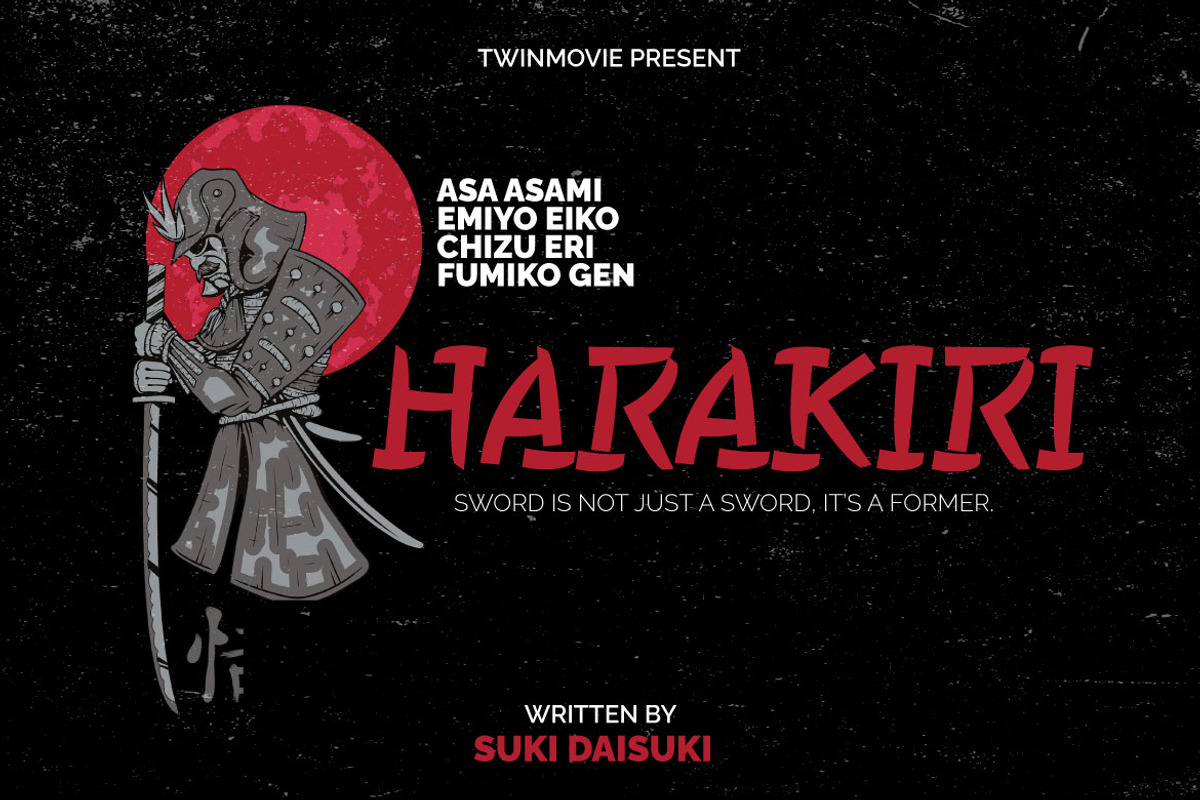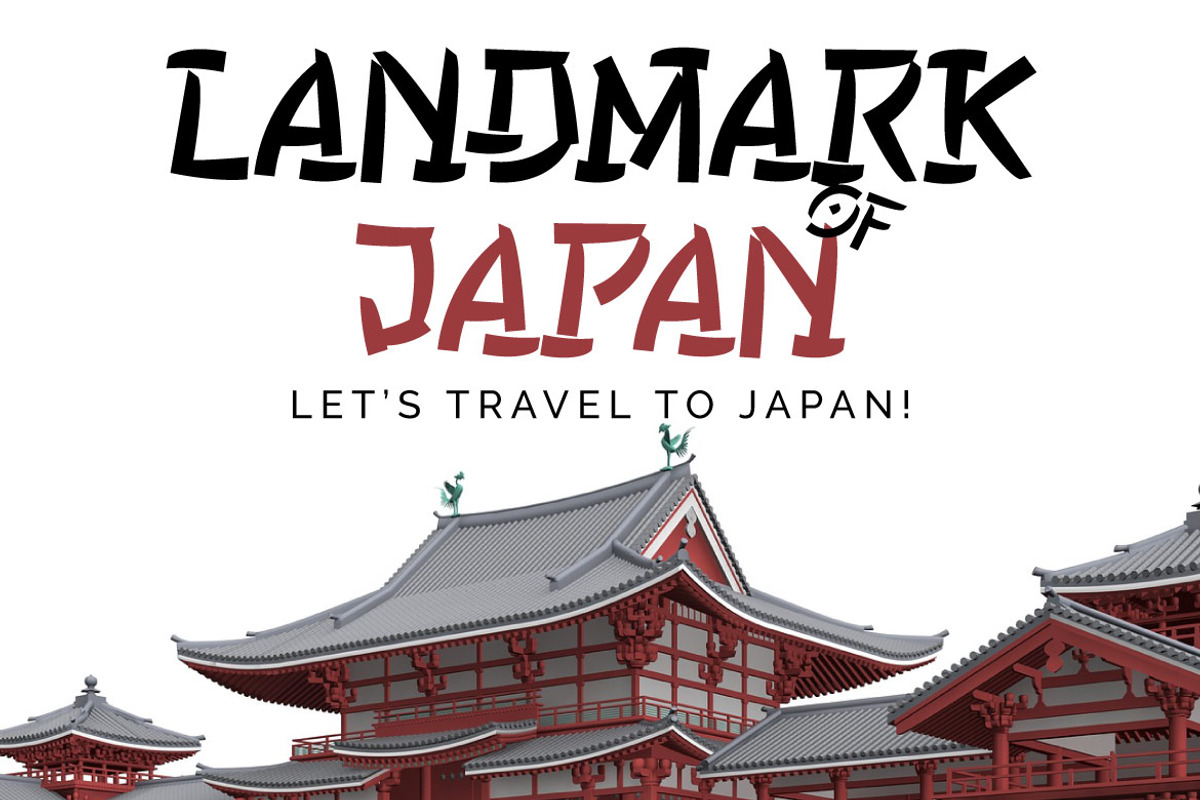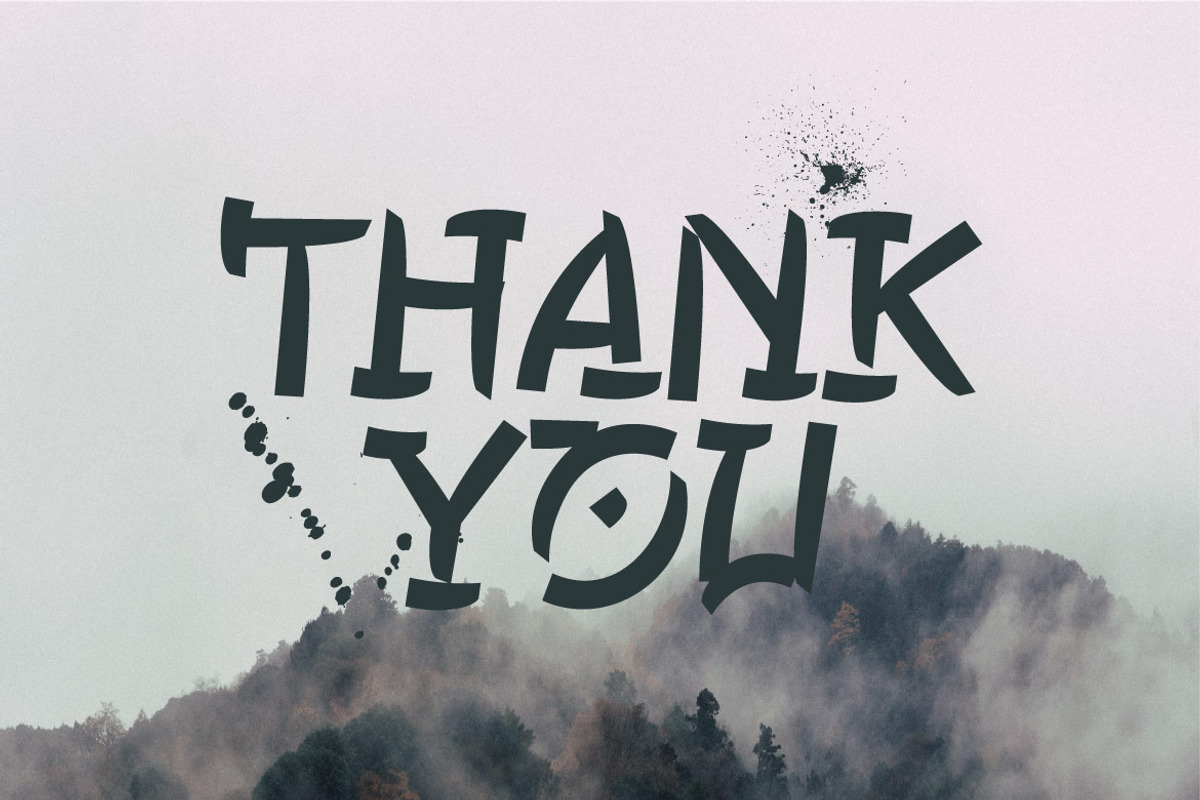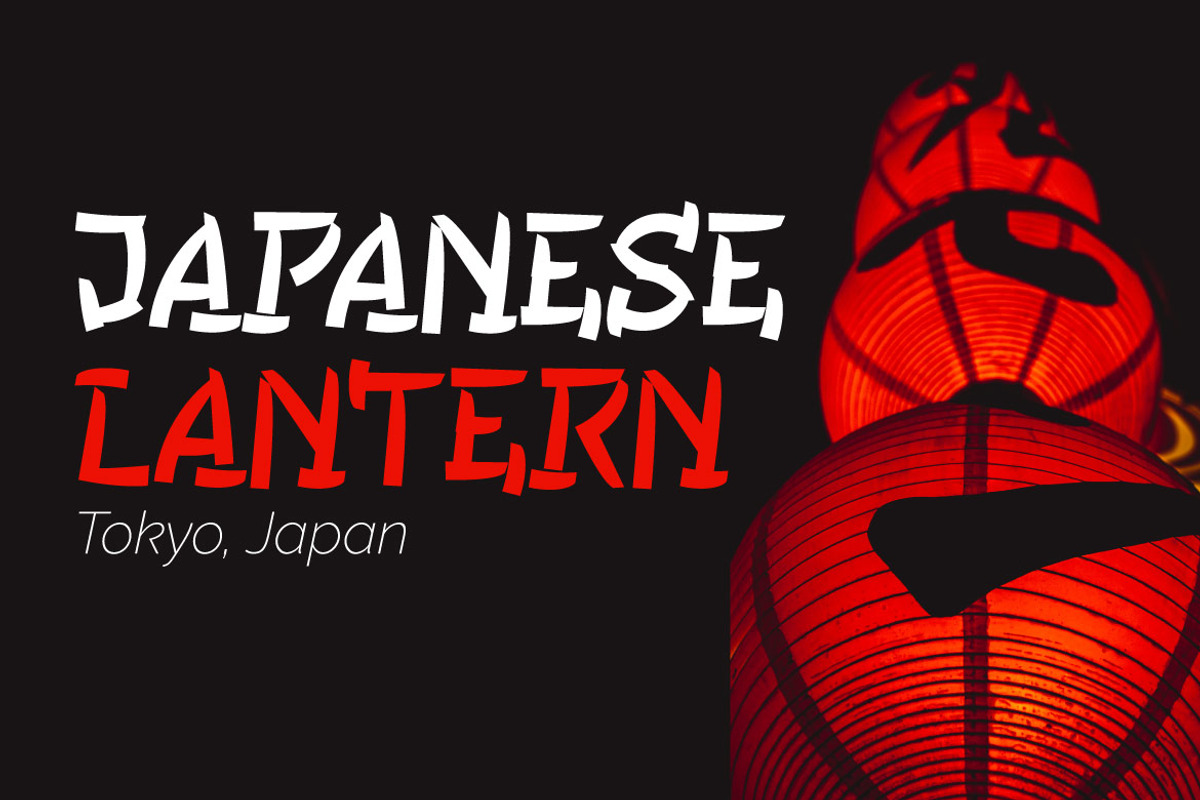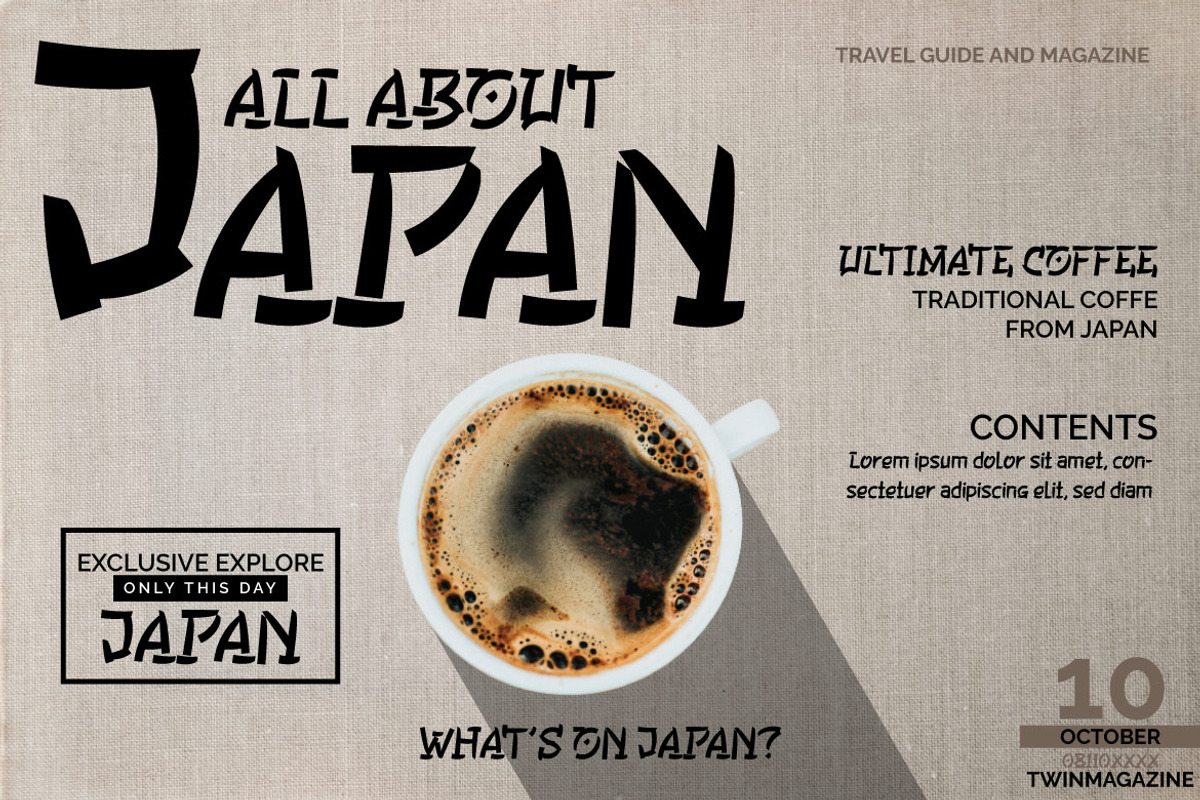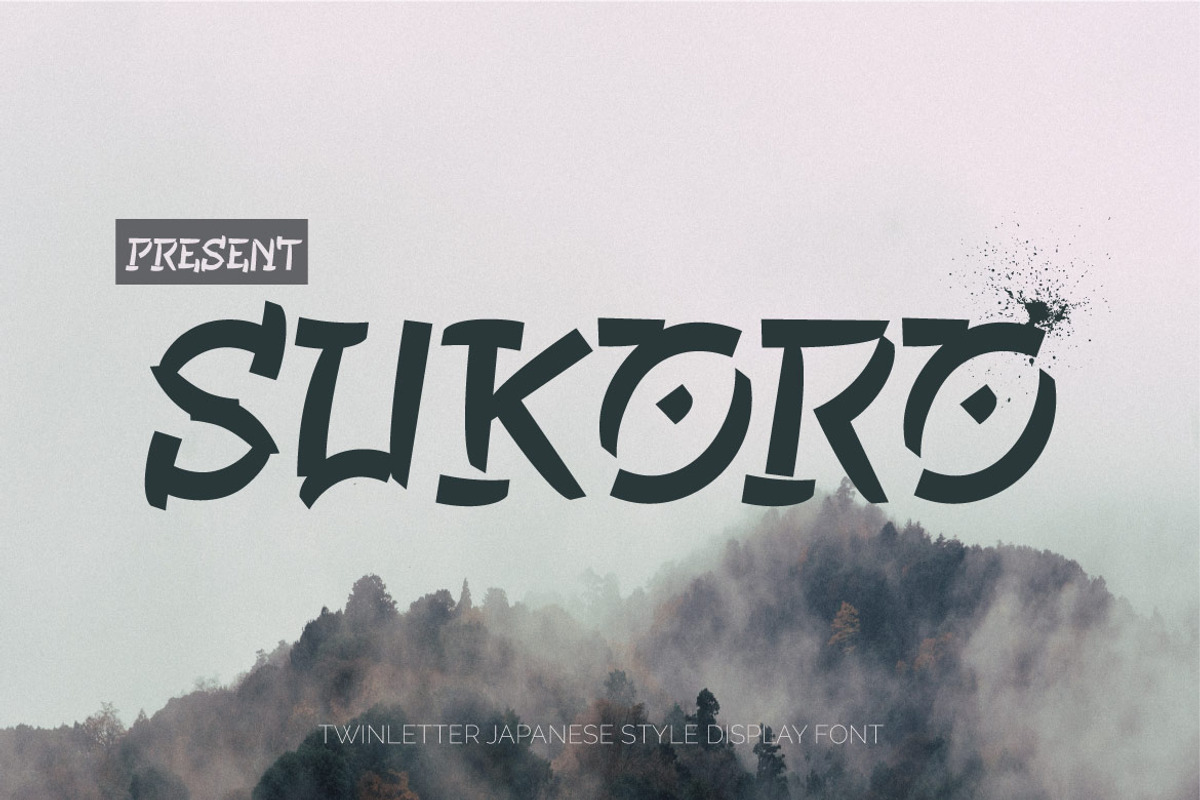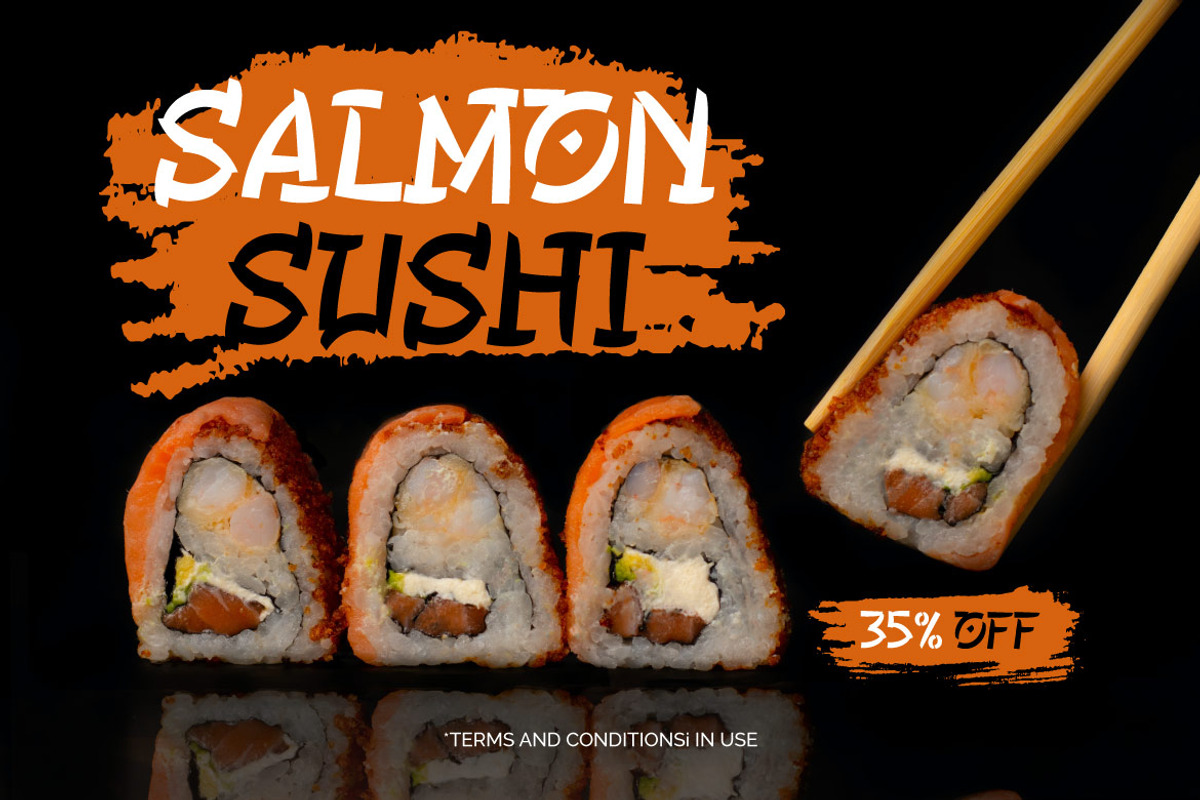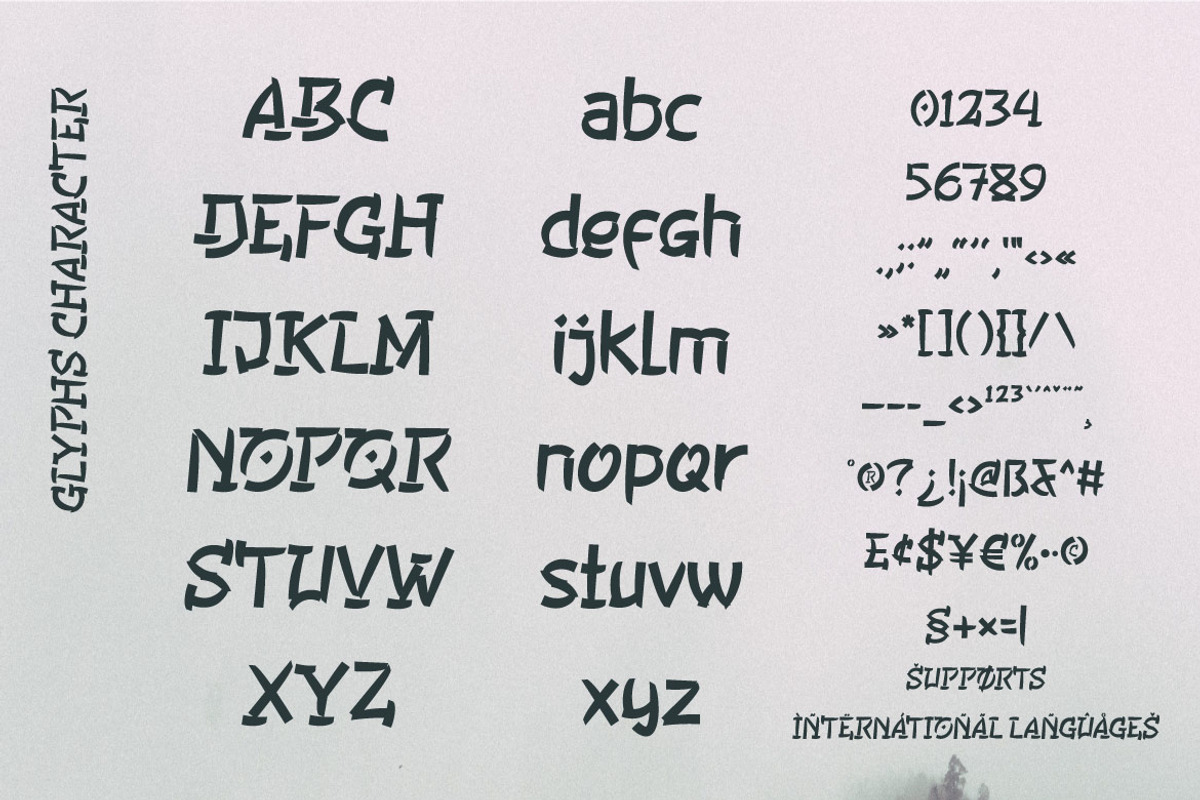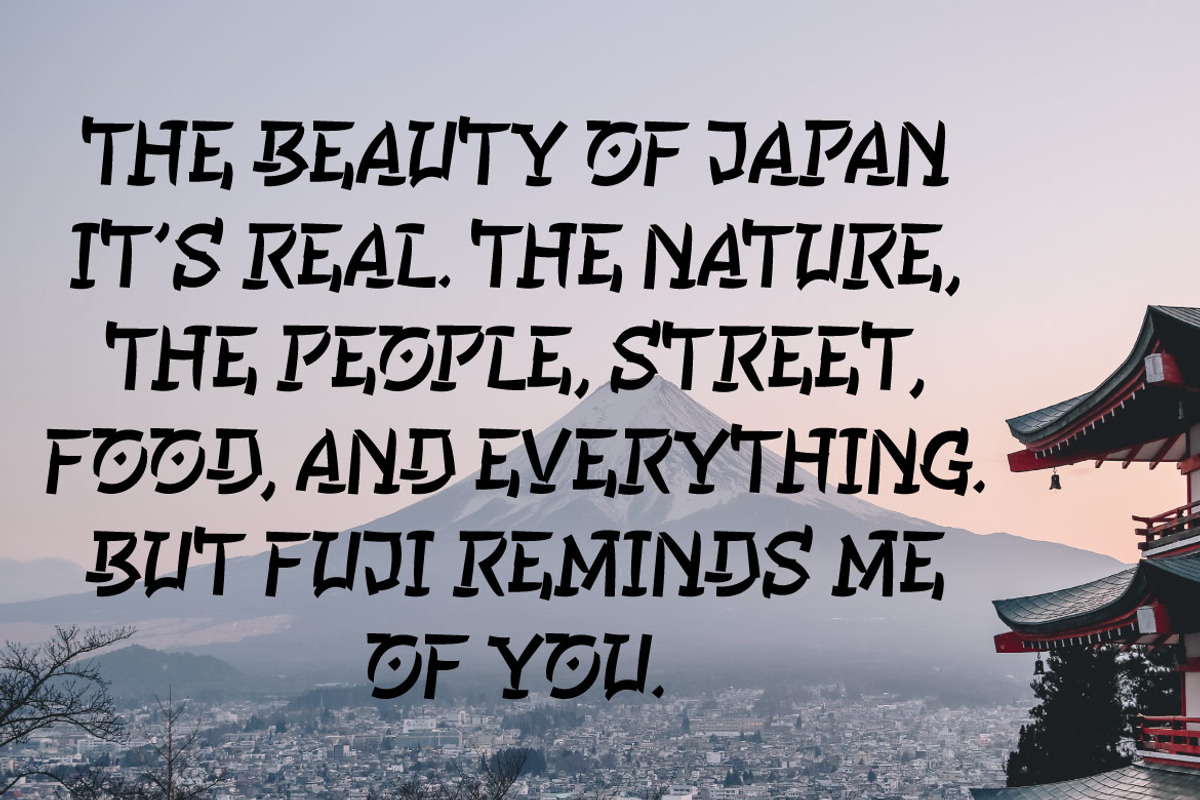
SUKORO - Japanese style font
Sukoro, our newest font, is now available. Because everyone does not necessarily comprehend Japanese letters, we give fonts with letters that can be used for your project, which is, of course, your project. A display font with a Japanese theme or an Asian font, which we produced to fulfill the needs of your Japanese-themed project. can be understood by people all over the world
We create abstract fonts while still focusing on optical balance, ensuring that your product stands out from the crowd.
Logotypes, food banners, branding, brochure, posters, movie titles, book titles, quotes, and more may all benefit from this font. Of course, using this font in your various design projects will make them excellent and outstanding; many viewers are drawn to the striking and unusual graphic display. Start utilizing this typeface in your projects to make them stand out.